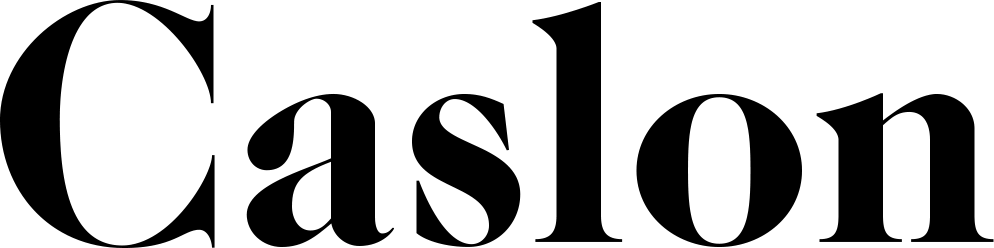
Caslon CP Font
Professional design of headlines, printed text, fashion, branding, and magazines requires a formal high-readability font with a clean and firm design close to this serif font, which appears in two different styles to increase the flexibility of your texts.
Blending your typography with a vintage design through intercede of this classical font, Caslon CP, with its edgy end design is beaming to give off trustworthy vibes into your graphics.